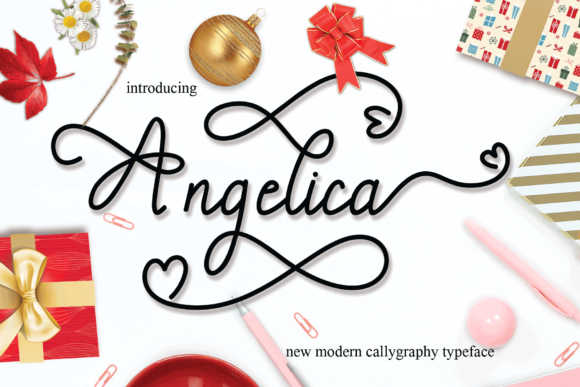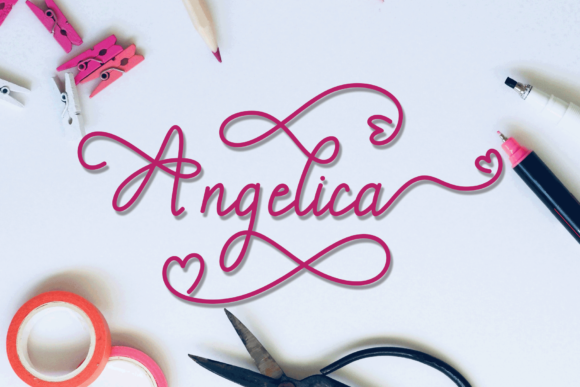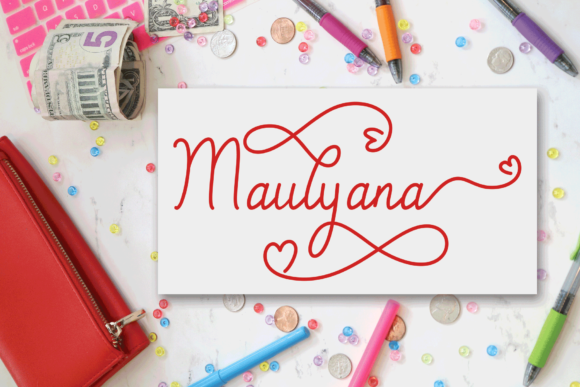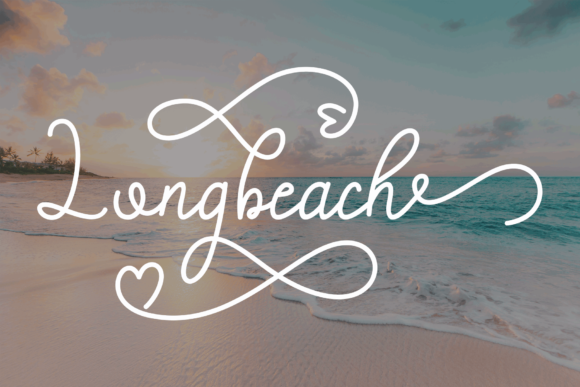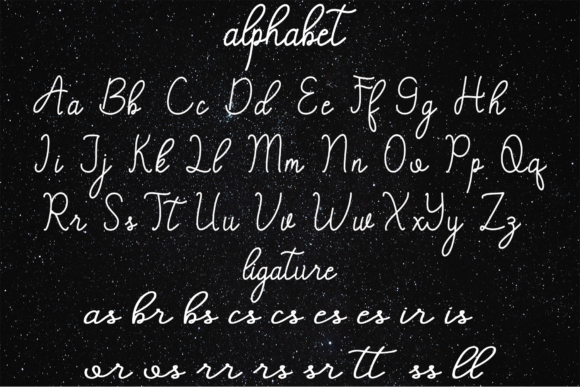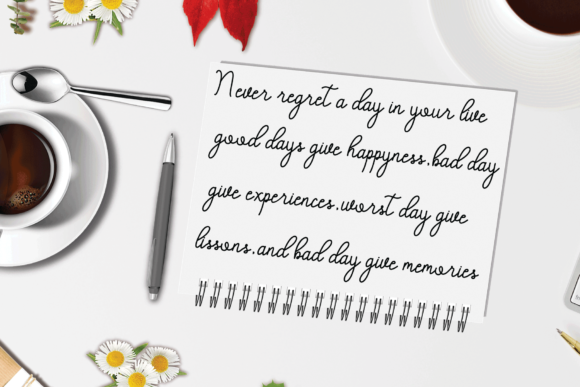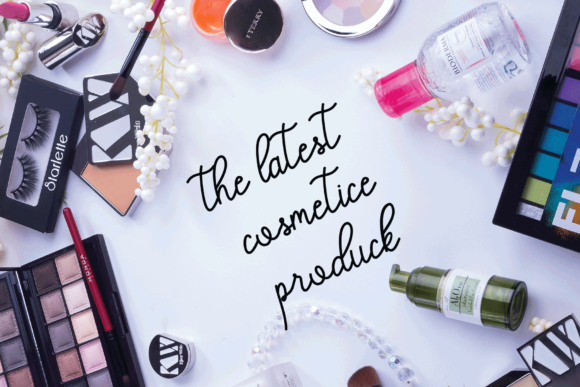
Discovering the Perfect Script: A Journey with Angelica Font
Have you ever stared at a blank page, waiting for the perfect font to emerge and bring your creative vision to life? It’s a moment we’ve all experienced, and for designers, it’s a crucial one. The right font can elevate a design from ordinary to extraordinary, and that’s exactly what Angelica Font promises to do.
Angelica Font is a stunning calligraphy font that exudes elegance and modernity. With its versatility, it’s perfect for a wide range of applications, from logos and branding to invitations, stationery, and wedding designs. Whether you’re a seasoned designer or just starting out, Angelica Font is an invaluable addition to your toolkit, offering a unique touch that sets your work apart.
Angelica Font Key Features
- Unique Characteristics: This font features a unique blend of modern and vintage elements, with intricate details and ornate flourishes, making it ideal for luxury branding and high-end designs.
Angelica Font Review
Overall, I was impressed with the Angelica Font for its unique blend of elegance and playfulness. ✨ The font’s intricate details and flourishes give it a distinct character that’s perfect for titles and headings. The open shapes and rounded edges also make it a great choice for body text, especially in digital applications.
One of the standout features of Angelica Font is its excellent legibility, even at smaller font sizes. This is thanks in part to the font’s well-designed letterforms and generous x-height. ✨ Additionally, the font’s OpenType features allow for advanced typographic effects, such as ligatures and swashes, which add a touch of sophistication to any design.
- ⚠️ Limited language support: The Angelica Font is primarily designed for Latin-based languages, which may limit its use for non-Latin scripts.
- ⚠️ Not ideal for large blocks of text: While the font is great for titles and headings, it may become overwhelming when used extensively for body text.
In conclusion, the Angelica Font is a versatile and beautiful typeface that’s perfect for designers looking to add a touch of elegance and whimsy to their projects. However, its limitations should be carefully considered before using it for large-scale text or non-Latin scripts.
The Angelica font is ideal for:
- Formal event invitations
For optimal results, use the Angelica font in conjunction with elegant and sophisticated design elements, such as cursive scripts and floral patterns.